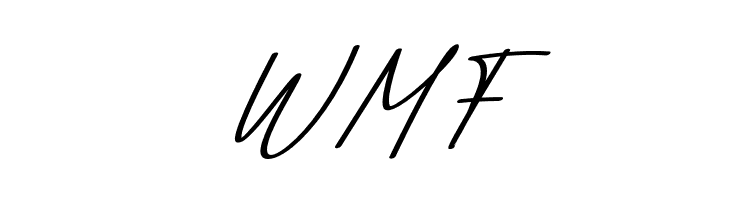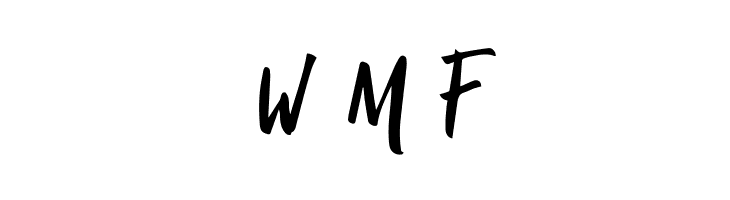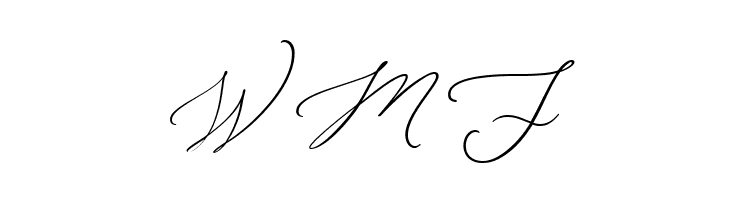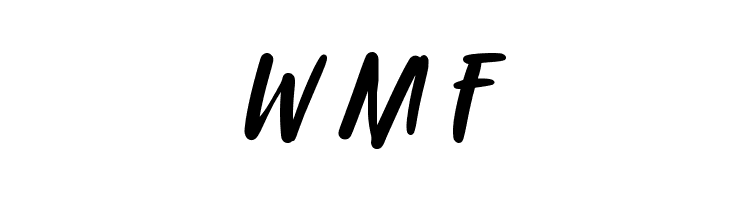
Casual handwritten font with playful, irregular strokes.
Expressive, bold handwritten script with brush-like strokes.
A graceful, calligraphic script with expressive, sweeping lines.
Casual handwritten script with rounded, playful forms.
Expressive, handwritten cursive script with fluid, slanted strokes.
Expressive handwritten script with fluid, connected strokes.
A refined, calligraphic script with elegant, flowing lines.
A decorative serif font with high contrast and geometric, angular details.
Bold, energetic handwritten brush script with casual flair.
Elegant handwritten script with fluid, connected strokes.
Casual, playful handwritten font with whimsical details.
A lively handwritten script with a casual, flowing style.
Expressive brush-script font with a handwritten, energetic style.
Expressive handwritten script with tall, narrow letters and fluid connections.
A refined, cursive handwritten script with thin, flowing lines.
Expressive, bold handwritten script with dynamic strokes.
Casual, handwritten script with tall, thin, flowing letters.
A delicate, handwritten script with elegant, flowing lines.
Casual handwritten font with tall, rounded letters and playful style.